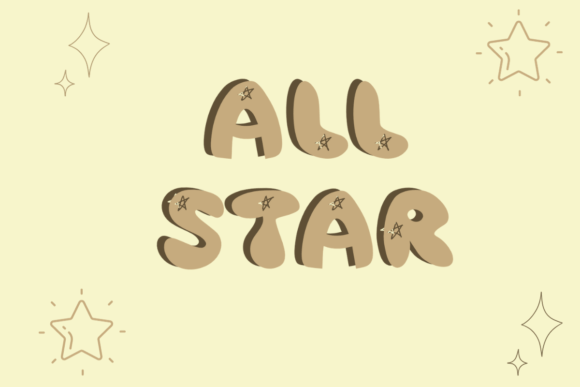
The Sparkle of All Star Font: Elevating Your Designs with a Touch of Whimsy
Have you ever been in the middle of a design project, and suddenly, you feel like something is missing? You’re not quite sure what it is, but you know it’s not quite coming together as you’d like. For me, that moment was when I was working on a children’s book cover. The design was cute, but it was missing that extra oomph to make it truly special. That’s when I stumbled upon the All Star font, and it was love at first sight! 💫
A Personal Review: What I Love About All Star Font
All Star font is a decorative font with star decorations that is perfect for projects related to cute, love, and kids. Here are some things I love about it:
- ✨ It’s incredibly versatile and can be used on a variety of projects, from cards and flyers to banners and book titles.
- ✅ The star decorations add a touch of whimsy and fun to any design.
- 💖 It’s perfect for creating designs that are sweet, charming, and playful.
While All Star font is amazing, there are a few small quirks to be aware of:
- 🤔 It may not be the best choice for very formal or professional projects, as it’s quite playful and decorative.
- ⚠️ Some of the star decorations can be a bit intricate, so they may not display well at very small font sizes.
The All Star font was designed with one goal in mind: to create a font that’s perfect for projects that need a touch of whimsy and fun. The designer, inspired by childhood memories of starry nights and magical adventures, created a font that’s both playful and charming. With its star decorations and elegant lines, All Star font is sure to bring a smile to anyone’s face.
| What type of projects is All Star font best suited for? | All Star font is perfect for projects related to cute, love, and kids, such as children’s book covers, greeting cards, and flyers. |
| Is All Star font available in different styles or weights? | Yes, All Star font comes in different styles and weights, making it versatile and flexible for various design projects. |